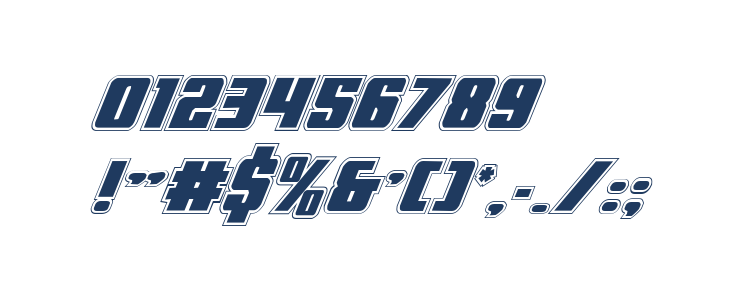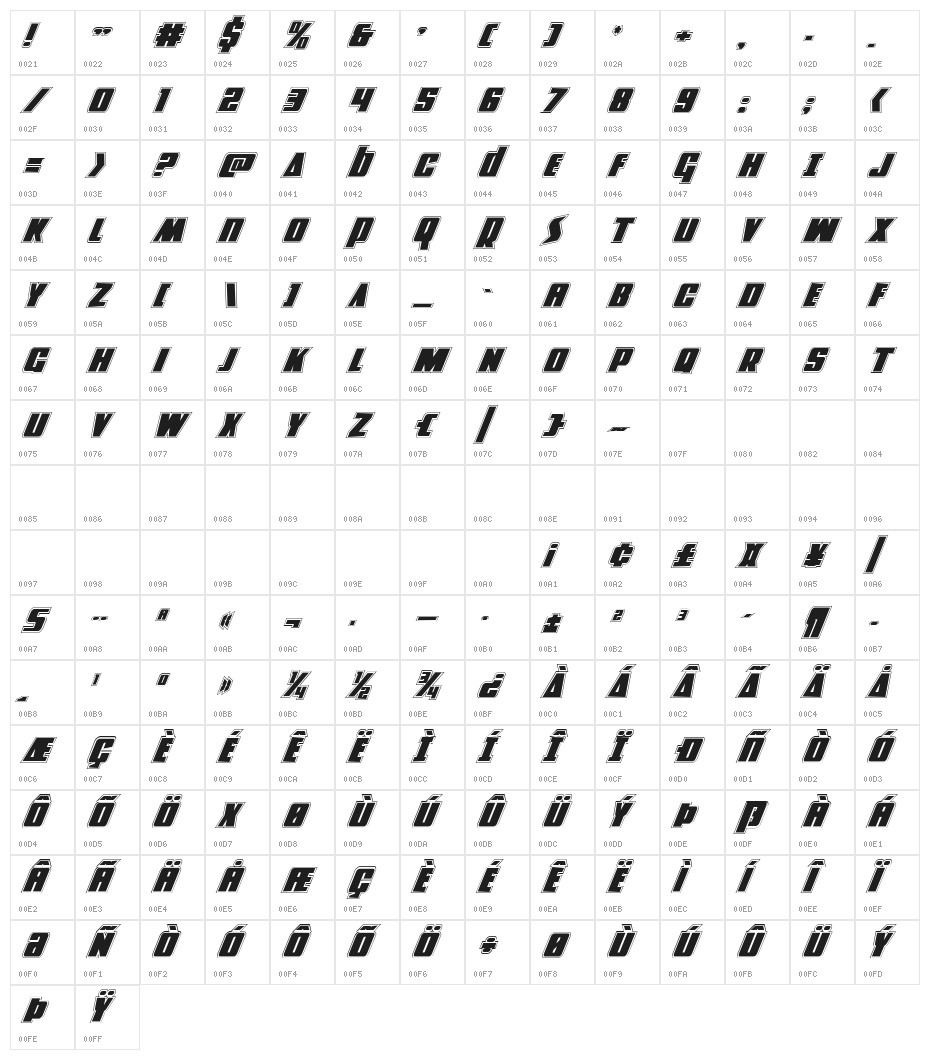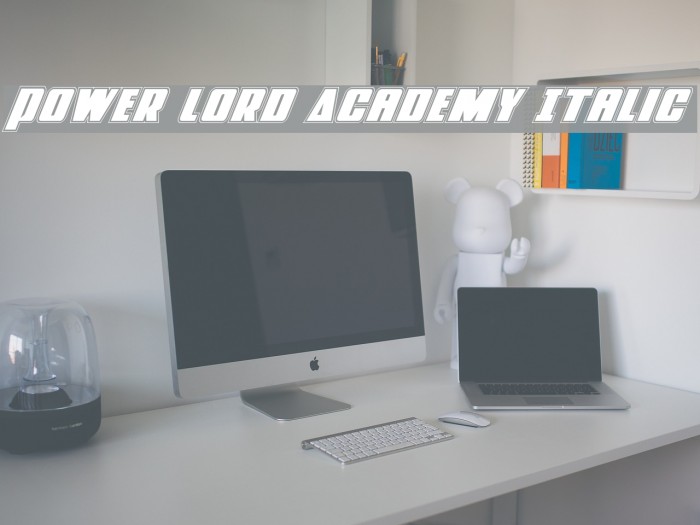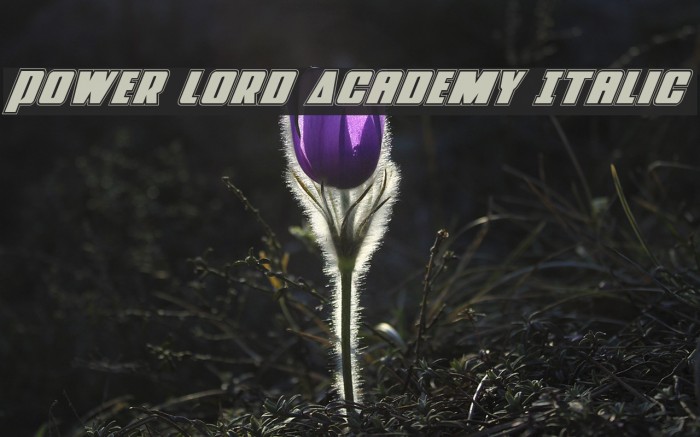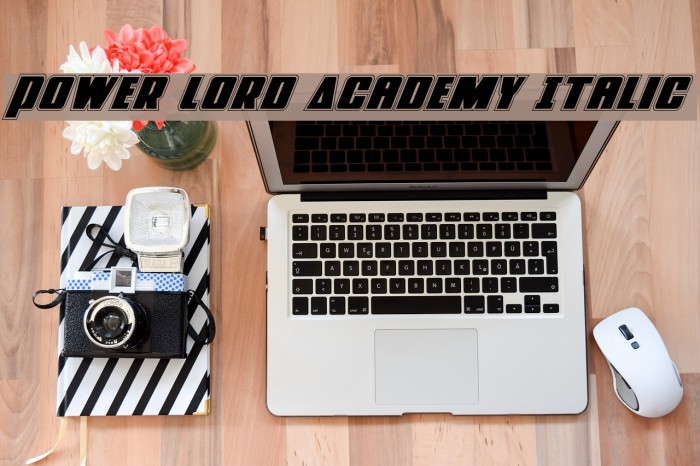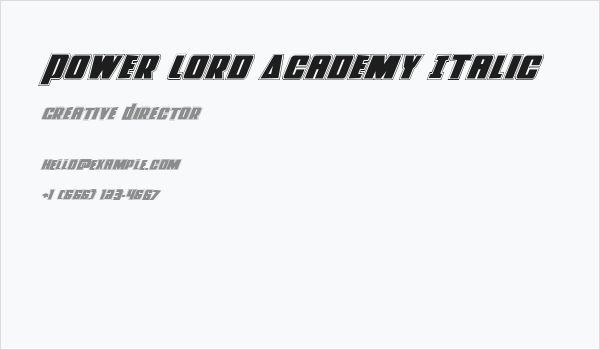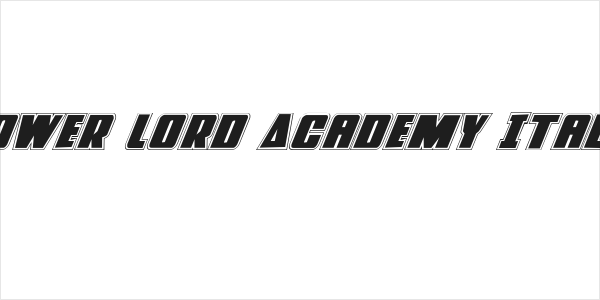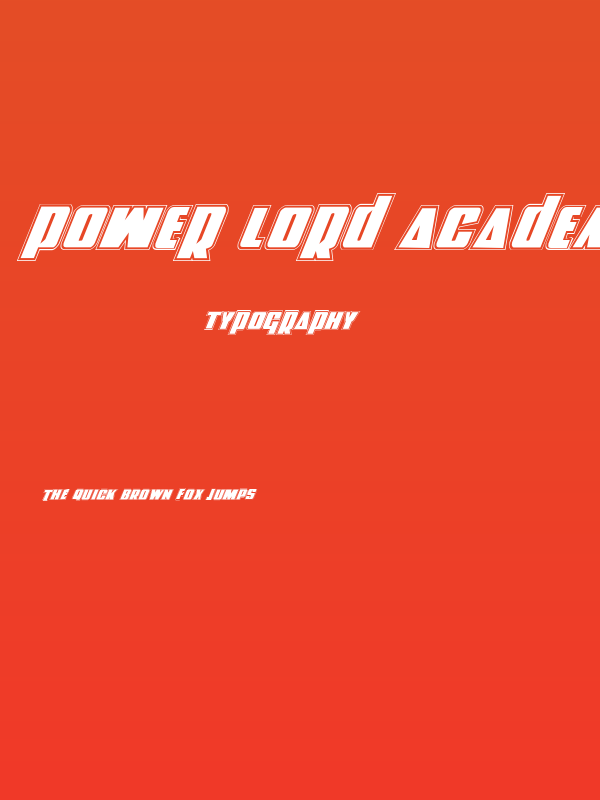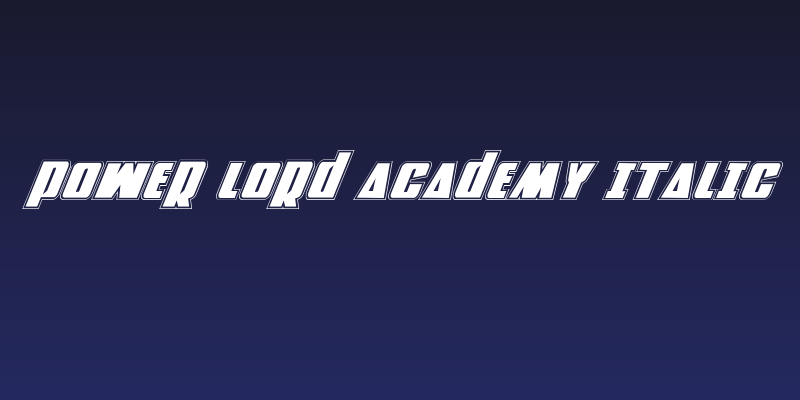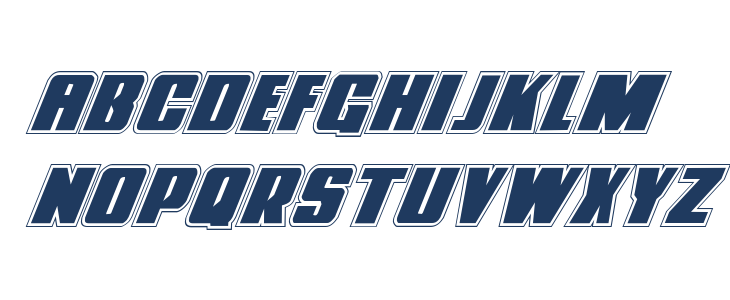
Power Lord Academy Italic Font
Power Lord Academy Italic Description
This font features a bold and dynamic style with a strong italic slant, giving it a sense of movement and energy. The characters are outlined with a thick border, enhancing their visibility and impact. The uppercase and lowercase letters maintain a consistent design, with sharp angles and a slightly condensed form. The numbers and special characters follow the same bold and italicized theme, ensuring uniformity across all glyphs. This font is ideal for projects that require a striking and modern aesthetic.
| Proposed Projects | Ideal for sports branding, action-themed posters, video game titles, and dynamic logo designs. |